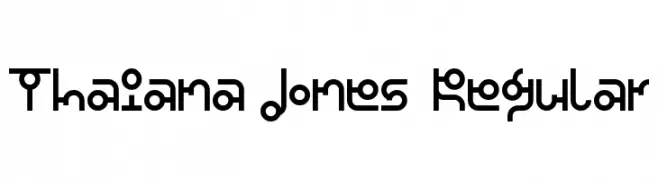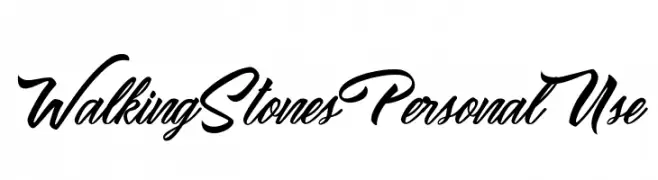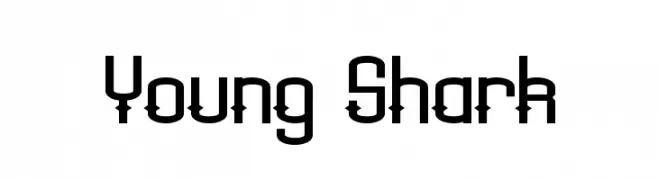
A bold, geometric font with modern and edgy characteristics.
A bold, decorative font with wavy line patterns inside each character.
A bold, geometric font with a futuristic and modern design.
A bold, decorative font with geometric, rounded shapes and a modern aesthetic.
A modern, geometric font with a futuristic and technical style.
A dynamic and elegant script font with flowing, cursive letterforms.
A decorative font inspired by intricate insect and arthropod designs.
A bold, italic, futuristic font with a stencil-like design and rounded edges.